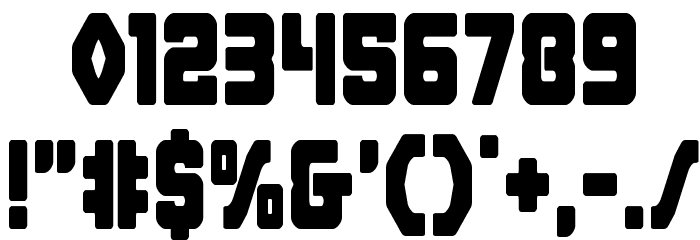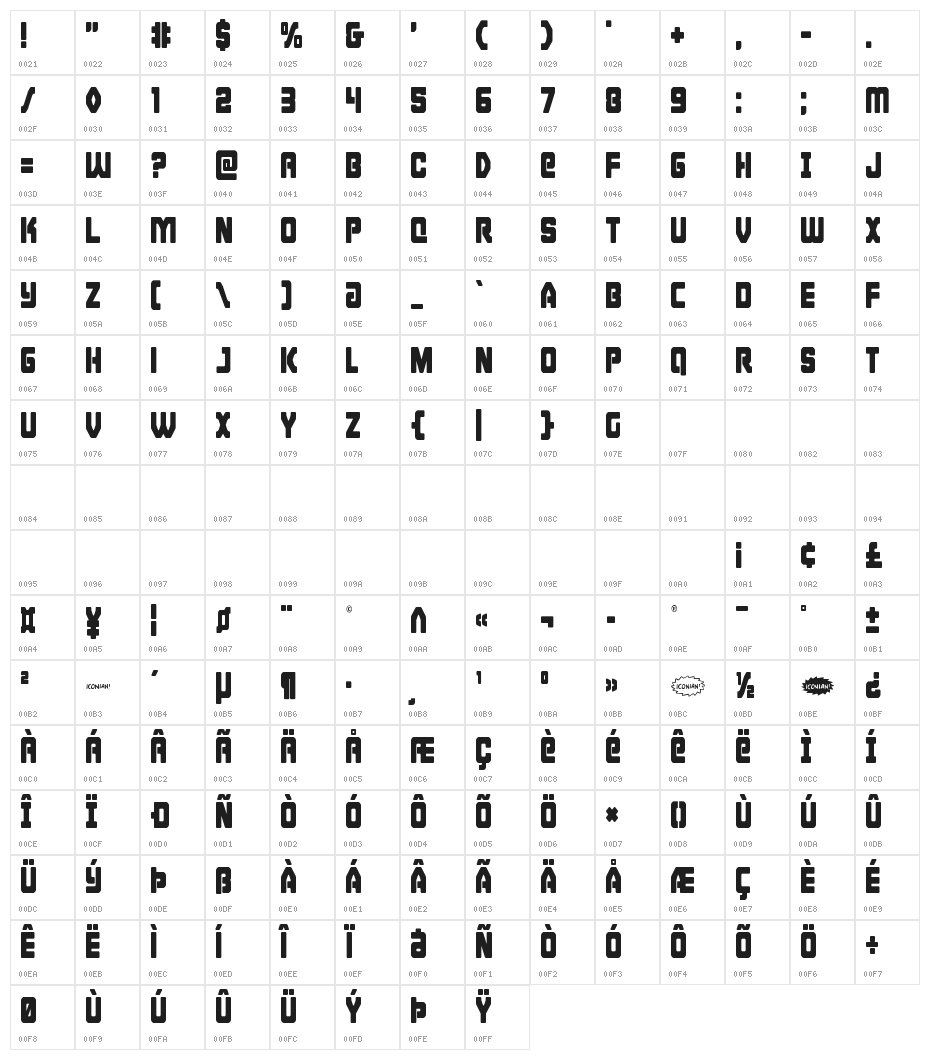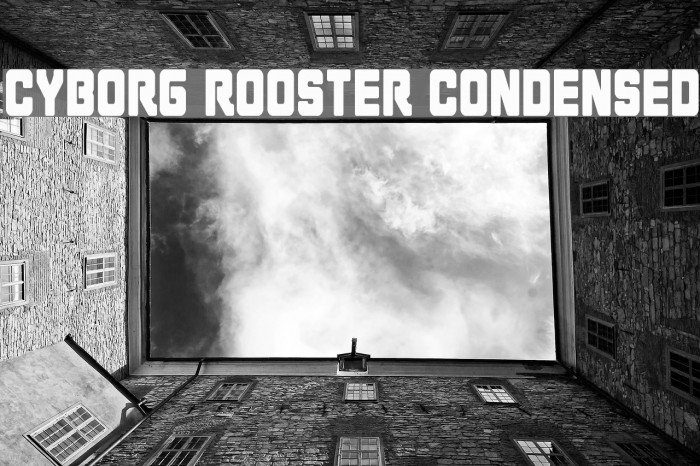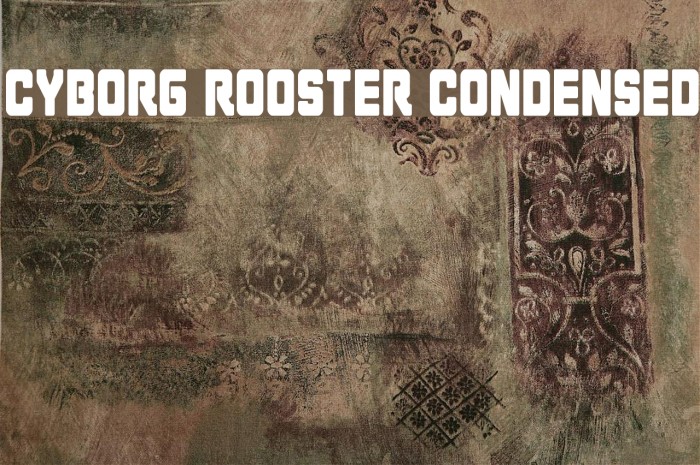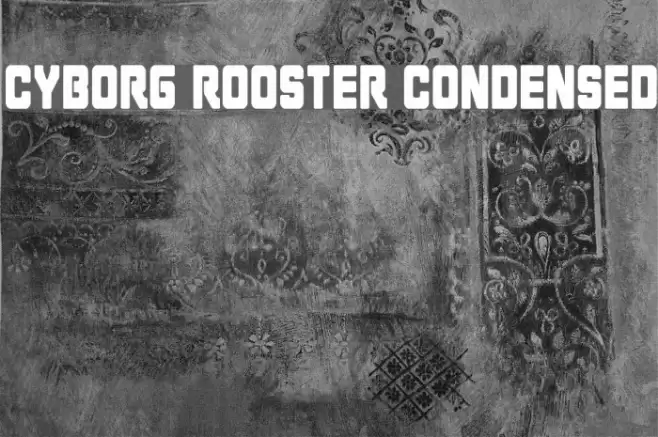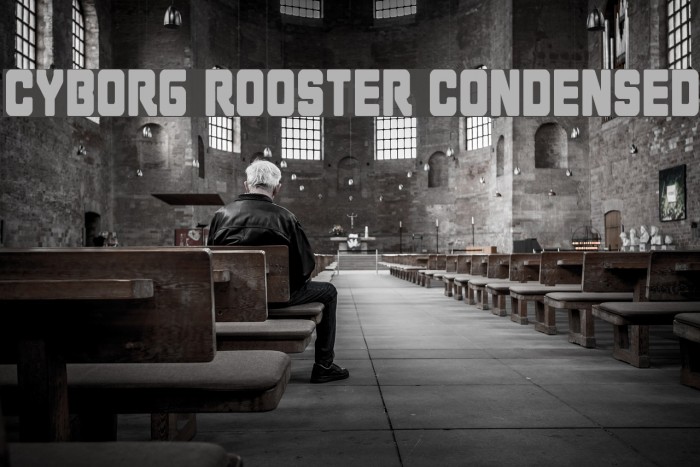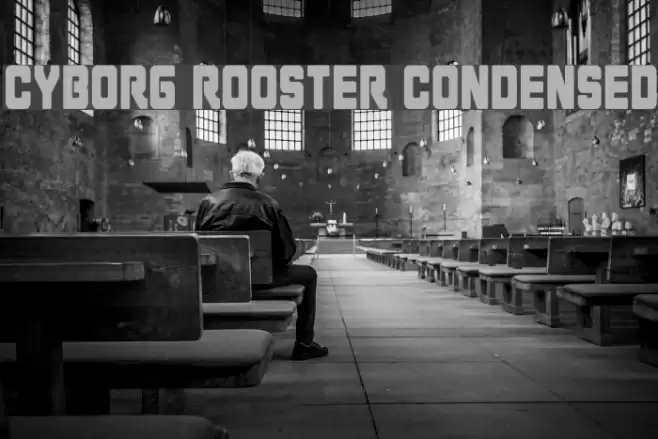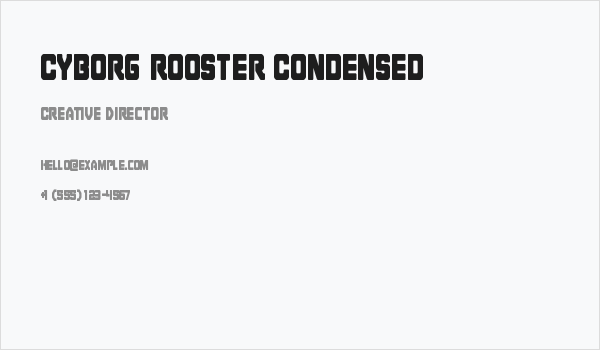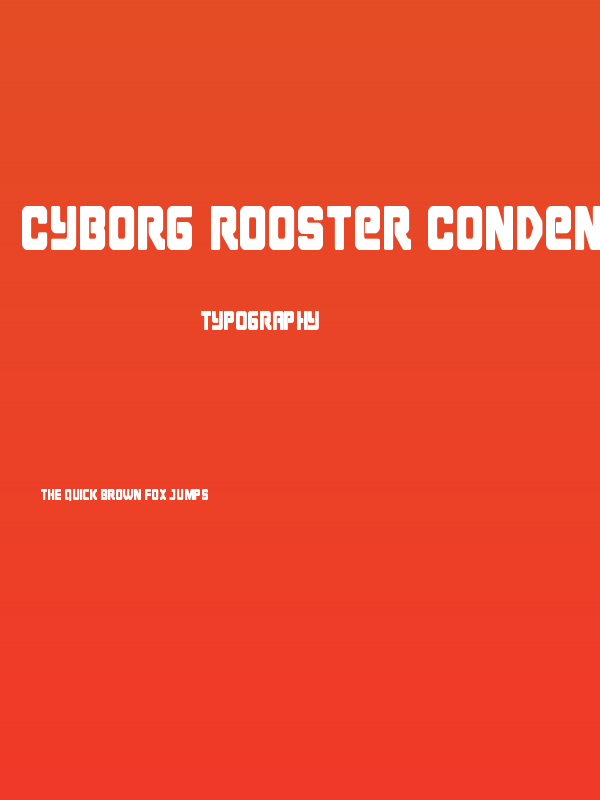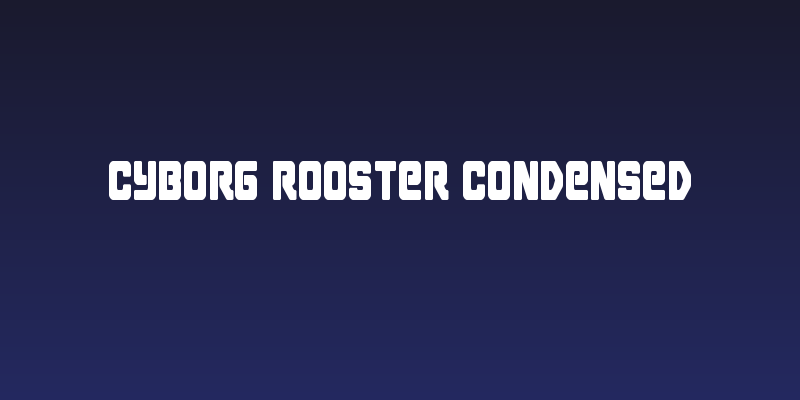
Cyborg Rooster Condensed Font
Cyborg Rooster Condensed Description
This font features a bold and futuristic design with a condensed structure, making it highly suitable for impactful headlines and modern digital interfaces. The characters are uniformly thick, with rounded edges that soften the otherwise robust appearance. The geometric shapes and consistent line weights contribute to a cohesive and visually striking aesthetic. The font's condensed nature allows for efficient use of space, making it ideal for designs where space is limited but impact is necessary. Its unique style is both eye-catching and versatile, fitting well in both digital and print media.